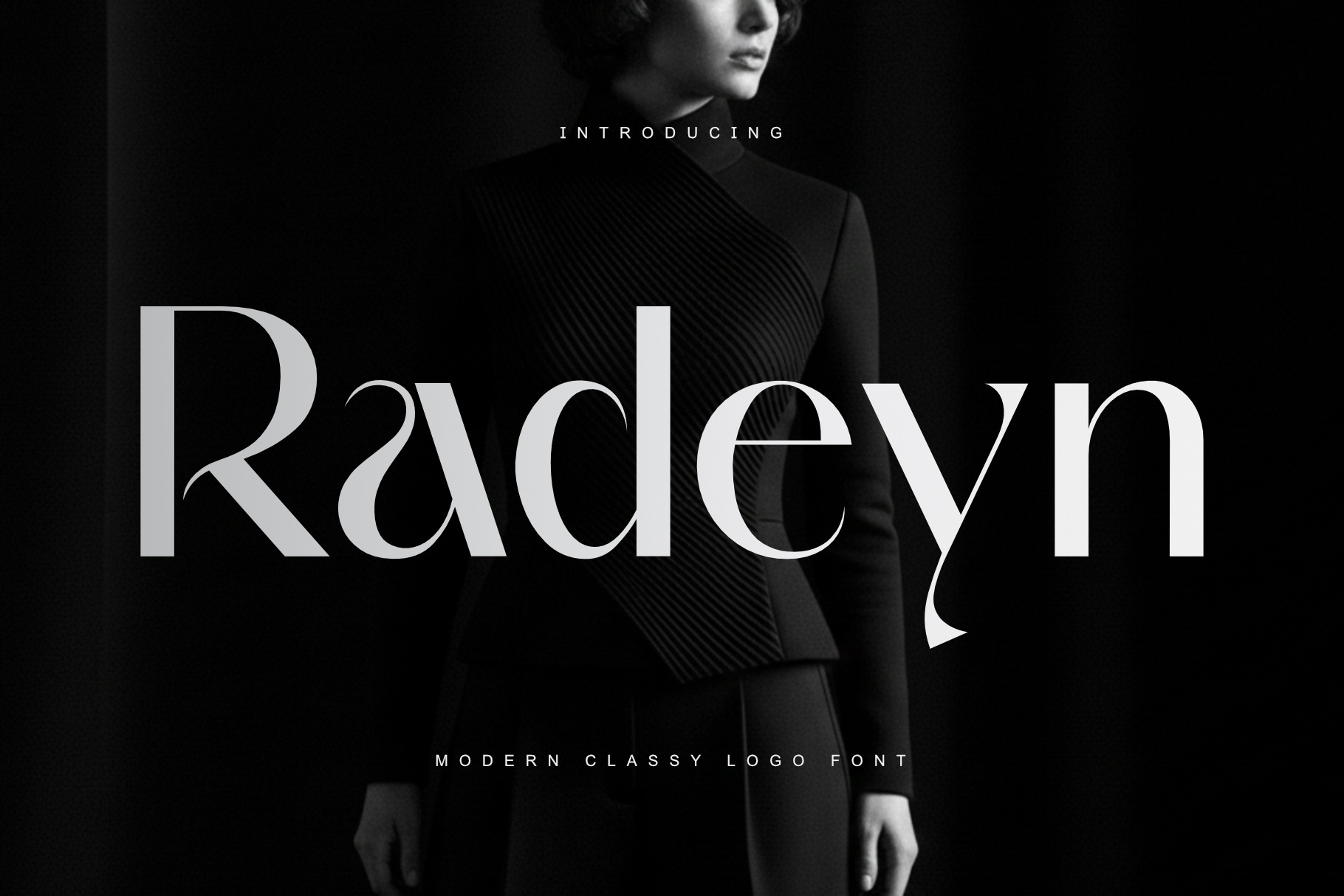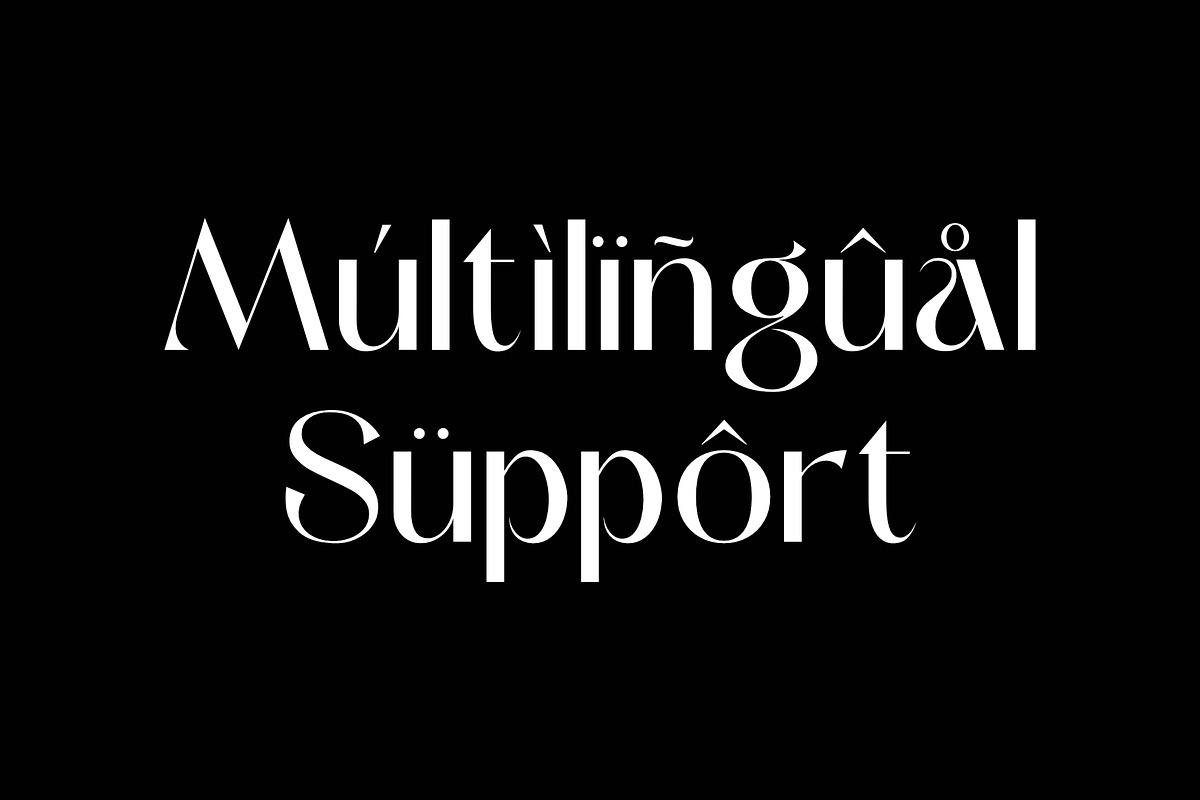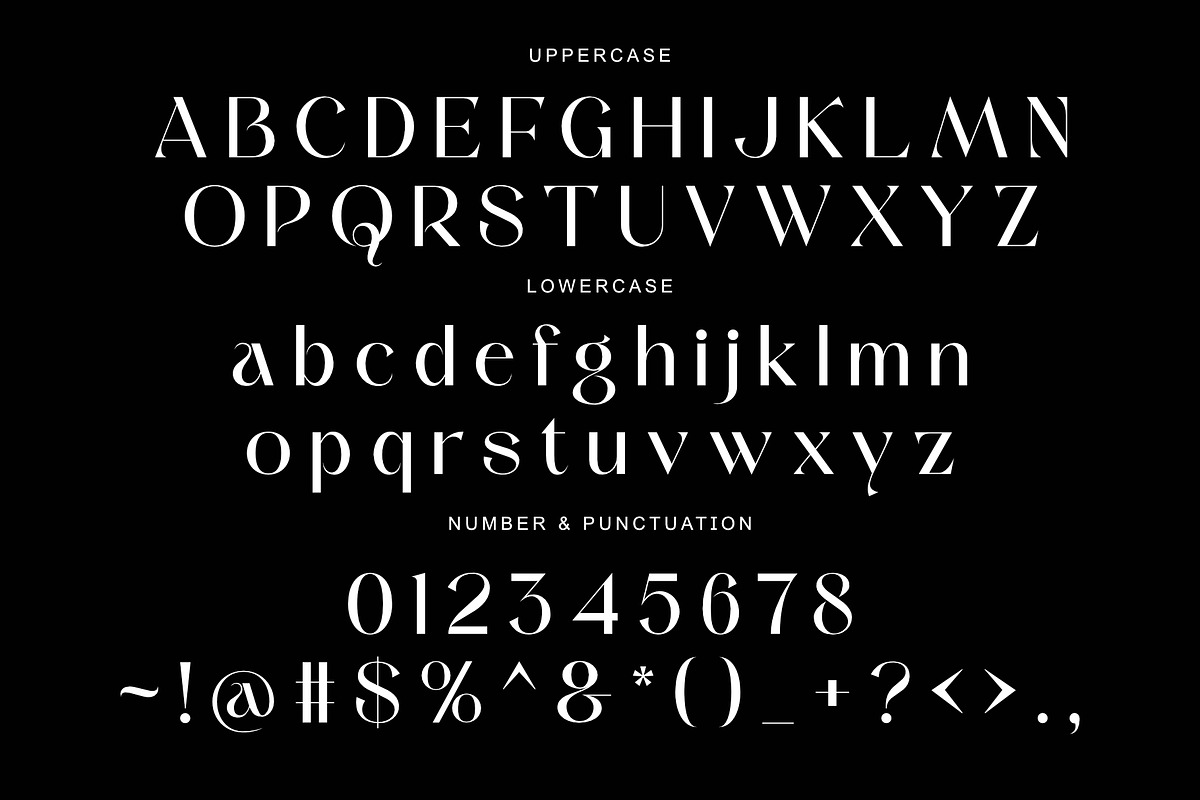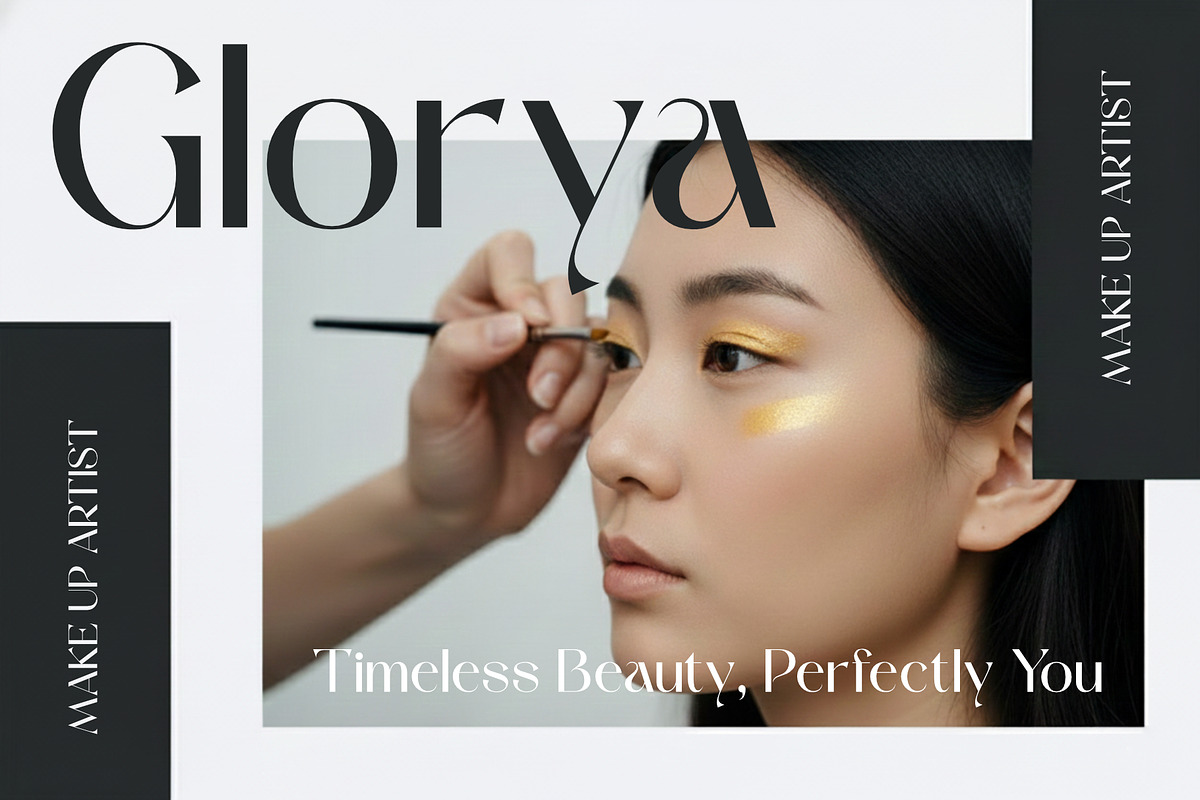
Radeyn | Modern Classy Logo Font
Radeyn is a modern classy logo font designed to bring elegance, luxury, and a contemporary feel to premium branding projects. Created especially for fashion, beauty, lifestyle, and high-end brands, this font combines clean shapes with refined details to deliver a timeless yet modern aesthetic.
This font is an ideal solution for designers, creatives, and product owners who want their designs to look more exclusive, modern, and sophisticated without losing simplicity and readability.
Modern classy logo font style
Uppercase & lowercase characters
Numbers and punctuation included
Radeyn works perfectly for logos, branding, fashion editorials, beauty products, makeup artist identities, packaging, invitations, and social media designs.